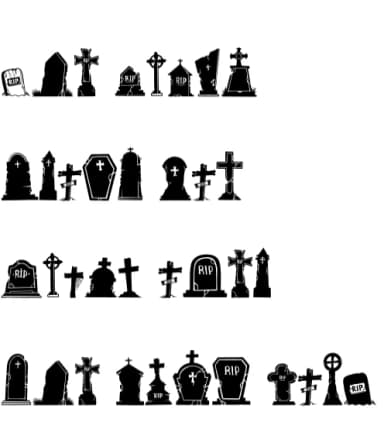
Halloween Grave by onoborgol is a hand-drawn dingbat collection that brings genuine spooky energy to your Halloween projects. Built around tombstone and gravestone glyphs, this font gives you a set of versatile symbols ready to add personality and theme to any seasonal work. These hand-lettered marks feel intentional and alive, perfect when you need to move beyond generic clip art.
You'll find these dingbats shine brightest on Halloween party invitations with a haunted twist, where each tombstone symbol adds authenticity to your design. They work equally well for creating trick-or-treat bag labels that kids will actually want to keep, or designing sticker sheets that capture that hand-crafted aesthetic. Graveyard-inspired scrapbooking layouts benefit from the collection's organic feel, and if you're building spooky event signage for a haunted house experience or October craft project, these glyphs deliver exactly the visual impact you need without feeling manufactured. The hand-drawn quality means each shape carries character and nuance rather than reading as cold vector art.
Use individual symbols as decorative accents scattered throughout your designs, or layer them densely to create textured background elements that fill space with atmosphere. Combine them with display typefaces or leave them solo as the main visual anchor, depending on what your project calls for. Find Halloween Grave on Creative Fabrica and start building your October-ready toolkit.
Halloween Grave Font